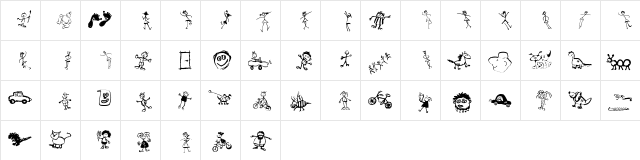
KidsArt Regular
Design Context for KidsArt Typeface
KidsArt has an approachable, lighthearted character — its loose, expressive forms are well-suited to children's content, casual branding, and fun-first design.
Font Pairing: Pairs well with a rounded or humanist sans for body copy, maintaining the friendly tone without relying on KidsArt to carry extended reading.
Pro Tip: Use KidsArt at larger display sizes where its expressive character can land. Pair with a clean, simple sans for body copy to maintain readability.